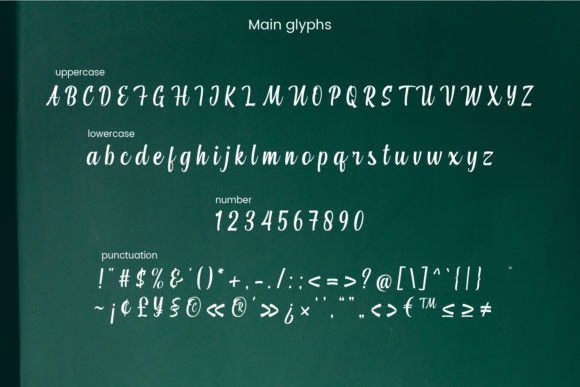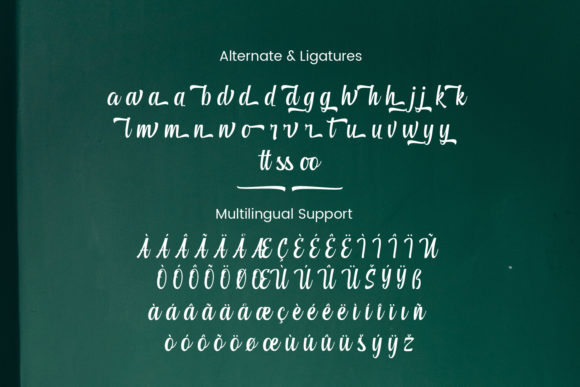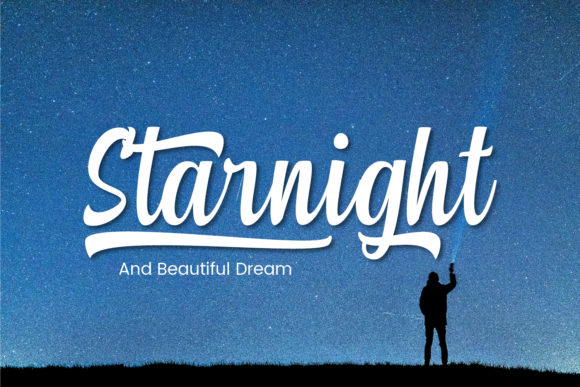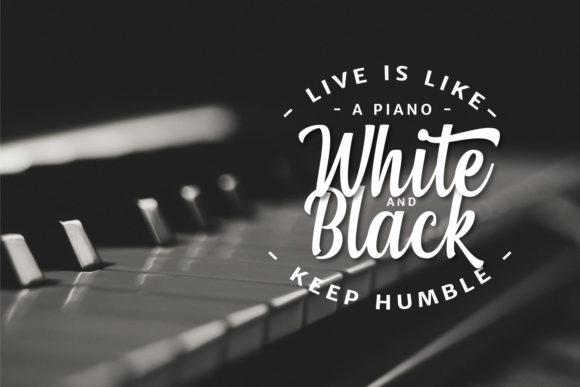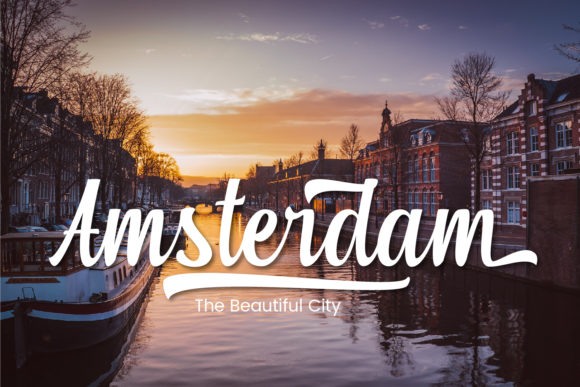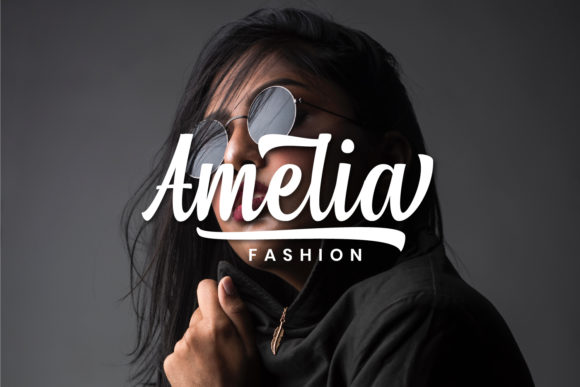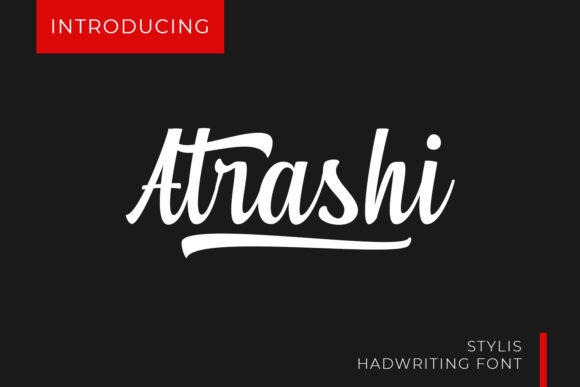
Introducing Atarashi Font: A Modern Handwritten Marvel
In the world of typography, fonts play a crucial role in conveying messages, expressing emotions, and creating visual identities. For designers, crafters, and creative enthusiasts, finding the perfect font can be a daunting task. However, if you’re looking for a modern, stylish, and versatile font, look no further than Atarashi Font. In this article, we’ll dive into the features, benefits, and uses of Atarashi Font, and explore why it’s a must-have for any creative project.
What is Atarashi Font?
Atarashi Font is a modern handwritten font designed to make a statement. Its unique, flowing script is perfect for adding a touch of elegance and sophistication to any design. Whether you’re working on a logo, branding materials, social media graphics, or digital crafts, Atarashi Font is sure to impress. Its modern and fresh look makes it an excellent choice for designers and crafters who want to create something new and exciting.
Key Features of Atarashi Font
- Modern Handwritten Style: Atarashi Font boasts a beautiful, handwritten script that’s perfect for creating a personal and approachable feel.
- PUA Encoded: This font is PUA (Private Use Area) encoded, which means you can easily access all the glyphs and swashes, giving you maximum flexibility and creativity.
- Standout on Busy Backgrounds: Atarashi Font is designed to shine, even on busy backgrounds. Its unique style ensures it will grab attention and make your design pop.
- Versatile: Use Atarashi Font as a standalone headline or pair it with other fonts for a stunning visual effect.
Benefits of Using Atarashi Font
So, why choose Atarashi Font for your next project? Here are just a few benefits:
- Save Time: With Atarashi Font, you can create stunning designs quickly and easily. Its PUA encoding means you can access all the glyphs and swashes without hassle.
- Enhance Your Brand: Atarashi Font’s modern and elegant style makes it perfect for branding and marketing materials. Use it to create a consistent visual identity that will elevate your brand.
- Add a Personal Touch: The handwritten style of Atarashi Font adds a personal and friendly feel to your designs, making it perfect for projects that require a human touch.
Who Can Benefit from Atarashi Font?
Atarashi Font is perfect for:
- Graphic Designers: Add a modern touch to your designs and create stunning visual effects.
- Crafters: Use Atarashi Font to create beautiful digital crafts, such as planners, journals, and printable art.
- Small Business Owners: Elevate your brand with a consistent visual identity that will make your business stand out.
- Social Media Influencers: Create engaging social media graphics that will grab attention and drive engagement.
In conclusion, Atarashi Font is a modern handwritten font that’s perfect for designers, crafters, and creative enthusiasts. Its unique style, PUA encoding, and versatility make it an excellent choice for any project. With Atarashi Font, you can create stunning designs that will grab attention and make your brand stand out. So why wait? Download Atarashi Font today and take your designs to the next level!